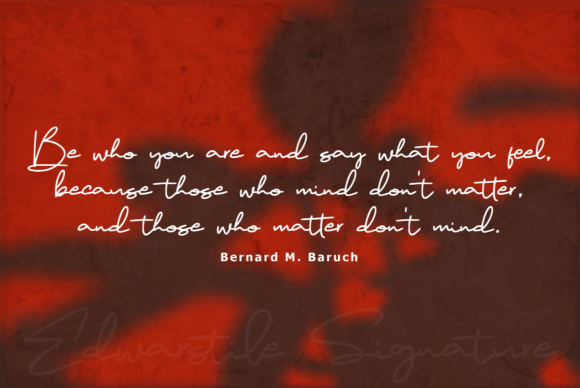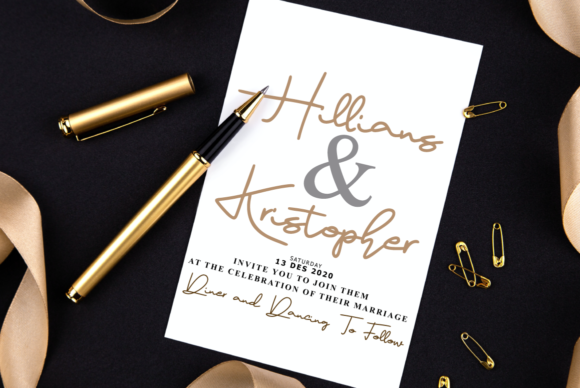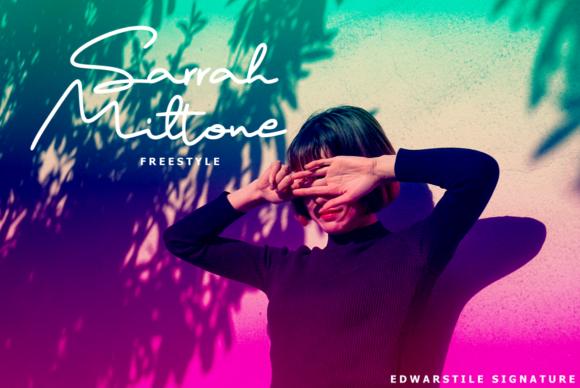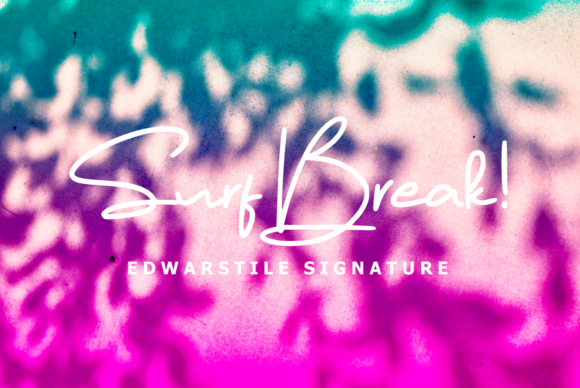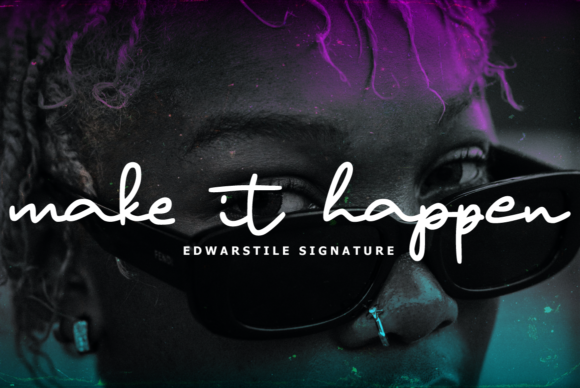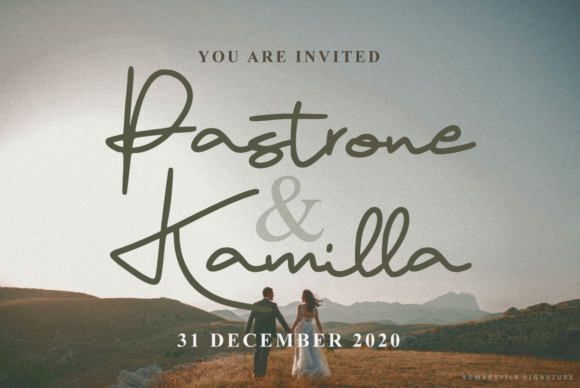
Introducing Edwarstile Signature Font: Elevate Your Designs with Elegance
Are you tired of using the same old fonts in your designs? Look no further! Edwarstile Signature Font is a stunning handwritten font that adds a touch of sophistication and elegance to any project. With its calligraphy style, soft rhythm, and dancing baseline, this font is perfect for designers and crafters looking to create beautiful and unique designs.
What Makes Edwarstile Signature Font Special?
Edwarstile Signature Font is a one-of-a-kind font that boasts a range of features that set it apart from other fonts. Here are some of its key characteristics:
- Handwritten with a Calligraphy Style: Edwarstile Signature Font has a beautiful, handwritten feel with a calligraphy style that adds a touch of luxury to any design.
- Soft Rhythm and Dancing Baseline: The font’s soft rhythm and dancing baseline give it a sense of movement and fluidity, making it perfect for designs that require a touch of elegance.
Perfect for a Range of Design Projects
Edwarstile Signature Font is versatile and can be used for a wide range of design projects, including:
- Greeting Cards: Add a personal touch to your greeting cards with Edwarstile Signature Font. Its elegant style makes it perfect for special occasions like weddings, birthdays, and holidays.
- Branding Materials: Create stunning branding materials, such as logos, brochures, and flyers, with Edwarstile Signature Font. Its unique style will help your brand stand out.
- Business Cards: Make a lasting impression with Edwarstile Signature Font on your business cards. Its elegant style conveys professionalism and sophistication.
- Quotes and Posters: Use Edwarstile Signature Font to create inspiring quotes and posters that grab attention. Its beautiful style will make your message stand out.
Why Choose Edwarstile Signature Font?
With so many fonts available, why choose Edwarstile Signature Font? Here are some reasons why designers and crafters love this font:
- Unique Style: Edwarstile Signature Font has a unique style that sets it apart from other fonts. Its elegant calligraphy style and soft rhythm make it perfect for designs that require a touch of sophistication.
- High-Quality Design: Edwarstile Signature Font is designed with high-quality in mind. Its beautiful style and elegant rhythm make it perfect for professional designs.
Tips for Using Edwarstile Signature Font
Here are some tips for using Edwarstile Signature Font in your designs:
- Pair it with Other Fonts: Edwarstile Signature Font pairs well with other fonts, such as sans-serif fonts. Experiment with different combinations to find the perfect look for your design.
- Use it for Headlines and Titles: Edwarstile Signature Font is perfect for headlines and titles. Its elegant style makes it stand out and grab attention.
- Experiment with Colors and Textures: Edwarstile Signature Font looks great in a range of colors and textures. Experiment with different combinations to find the perfect look for your design.
| Author | Tebaltipis.std |
Edwarstile Signature Font is a stunning handwritten font that adds a touch of elegance and sophistication to any design. With its calligraphy style, soft rhythm, and dancing baseline, this font is perfect for designers and crafters looking to create beautiful and unique designs. Its PUA encoding makes it easy to customize, and its high-quality design ensures that it will look great in any project. Whether you’re creating greeting cards, branding materials, business cards, or posters, Edwarstile Signature Font is the perfect choice.